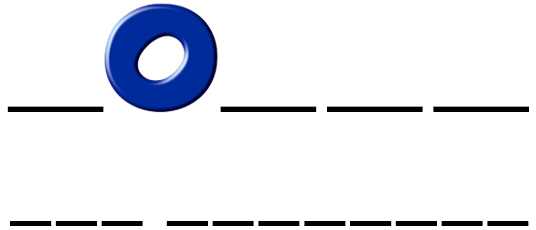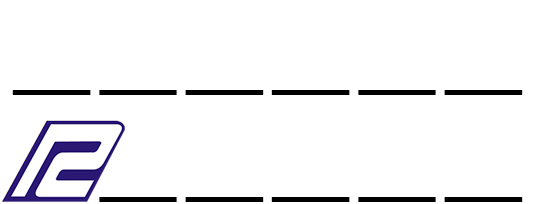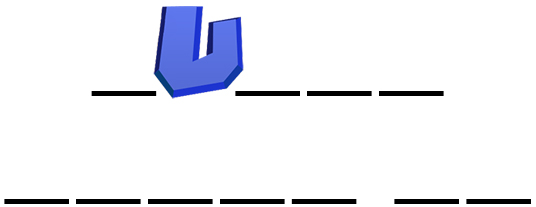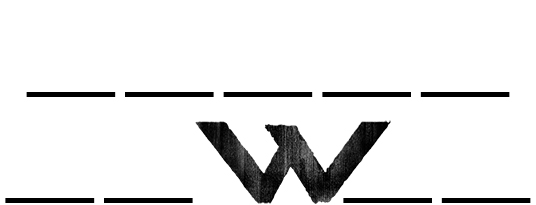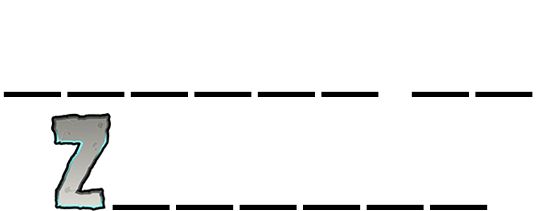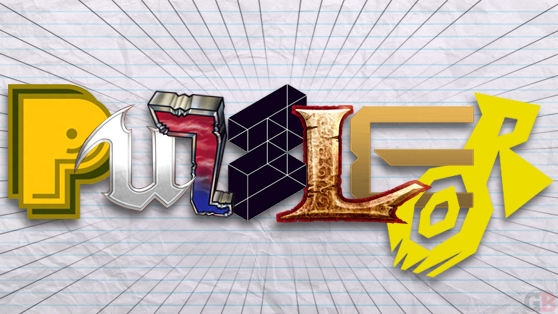
Puzzler
Puzzler: Guess the games by their logo font (part 2)
The more striking and distinct a logo font is, the easier it is for us to remember and associate it with a particular product or work. You’d never confuse the “S” in Star Wars with the one in Star Trek.
Part two of our Puzzler (click here for part one) covers letters N through Z. Same dealio as before: We show you a single letter from a game logo, and you guess which title it belongs to.
Stumped? Then take advantage of the hints provided under each image. If you’re feeling lucky, why not also guess the seven names used to make the word “Puzzler” in the top image?
Puzzler N
N. Hint: Size 8 shoe.
Puzzler O
O. Hint: Power sneakers with “blast processing.” (More than one “O”)
Puzzler P
P. Hint: Don’t beat ’em, join ’em.
Puzzler Q
Q. Hint: Match gems and cast spells.
Puzzler R
R. Hint: The ultimate game of cat and mouse.
Puzzler S
S. Hint: Cloak engaged. (More than one “S”)
Puzzler T
T. Hint: Makes you really appreciate your little finger.
Puzzler U
U. Hint: Trade a penguin chick for a star.
Puzzler V
V. Hint: Huge armies of tiny soldiers.
Puzzler W
W. Hint: The dreams in which I’m dying are the best I’ve ever had.
Puzzler X
X. Hint: Half otter. Half weasel. All hero.
Puzzler Y
Y. Hint: An island paradise turned into a brutal death trap.
Puzzler Z
Z. Hint: There’s butter on my head.